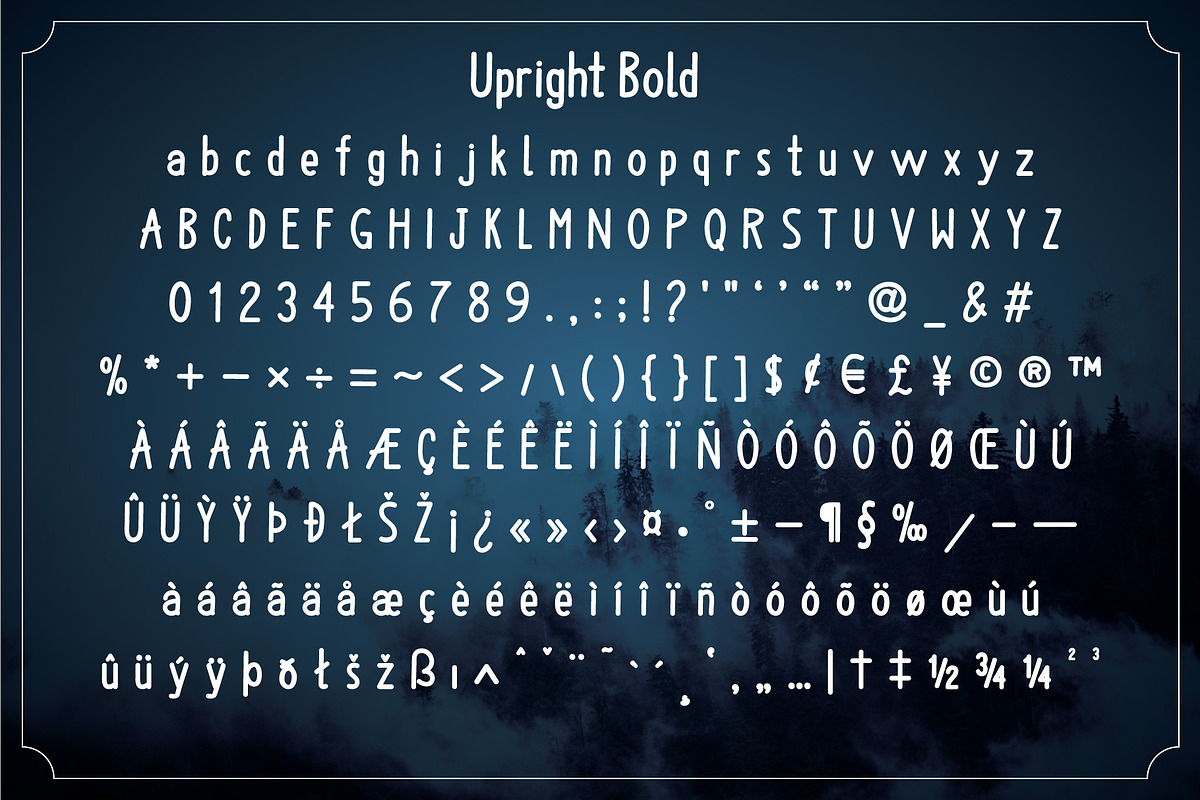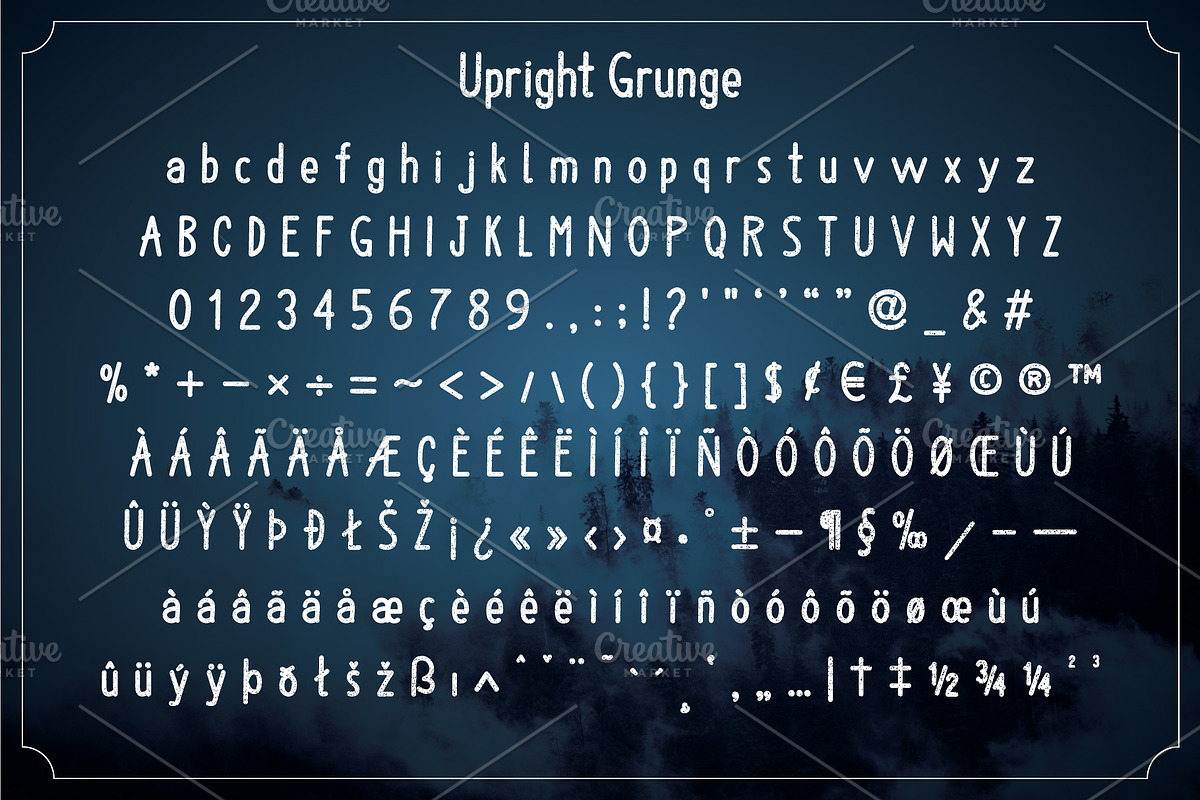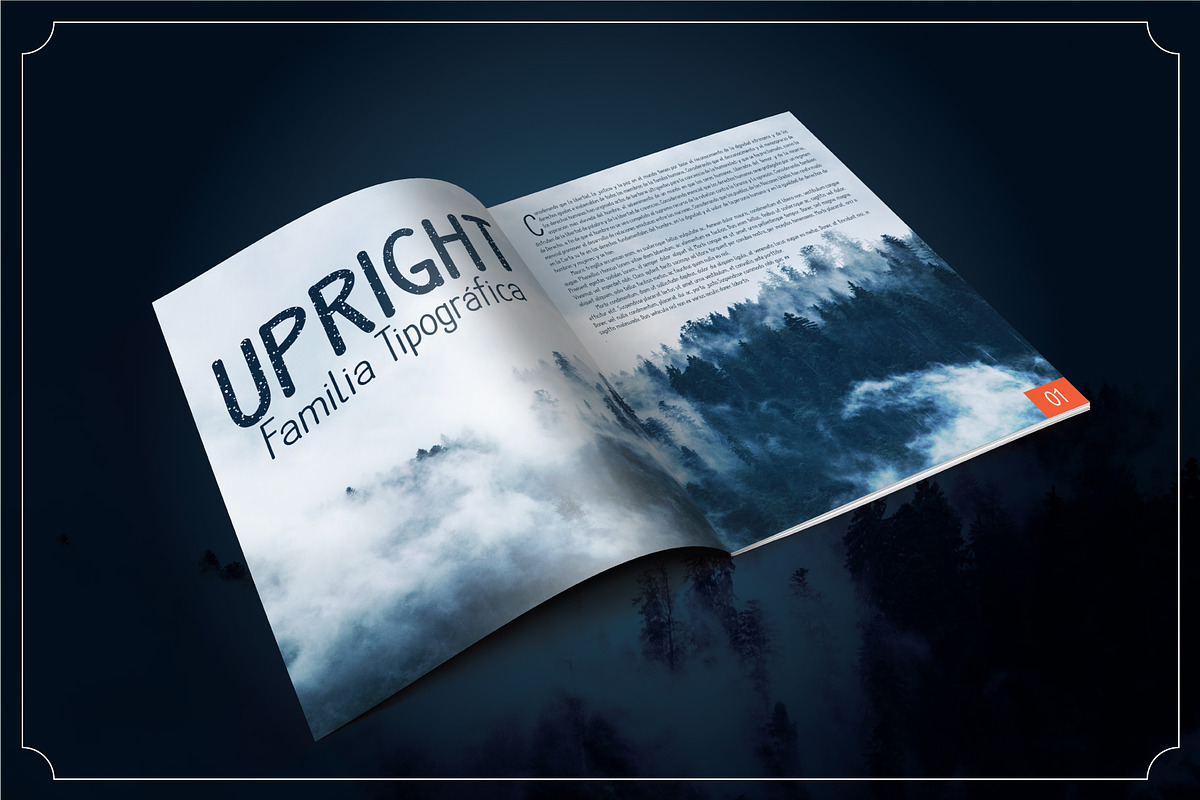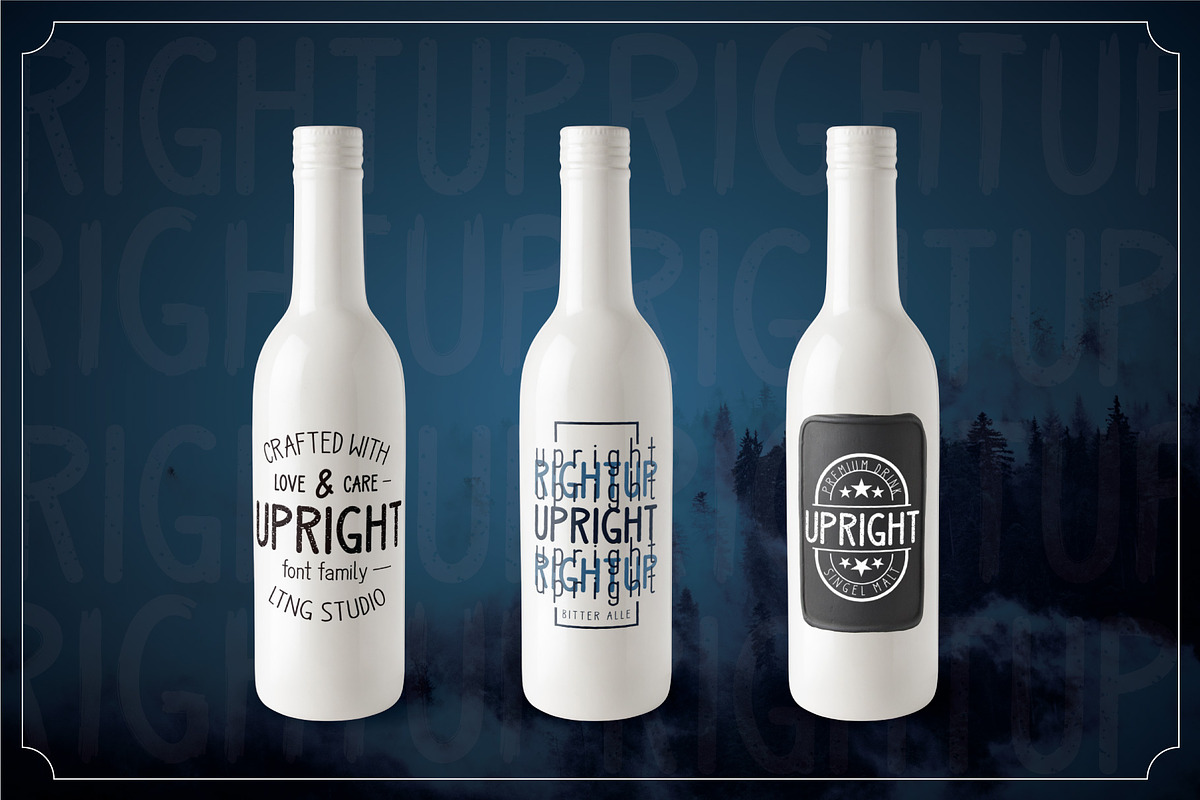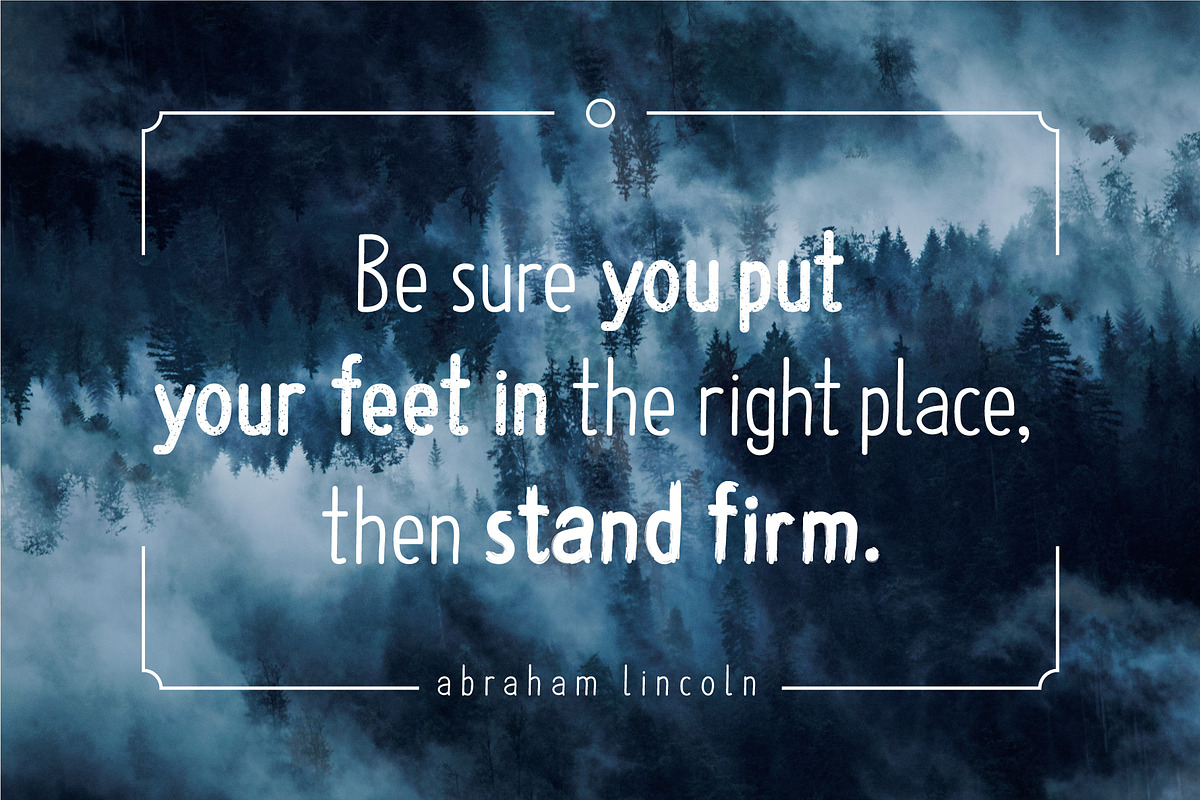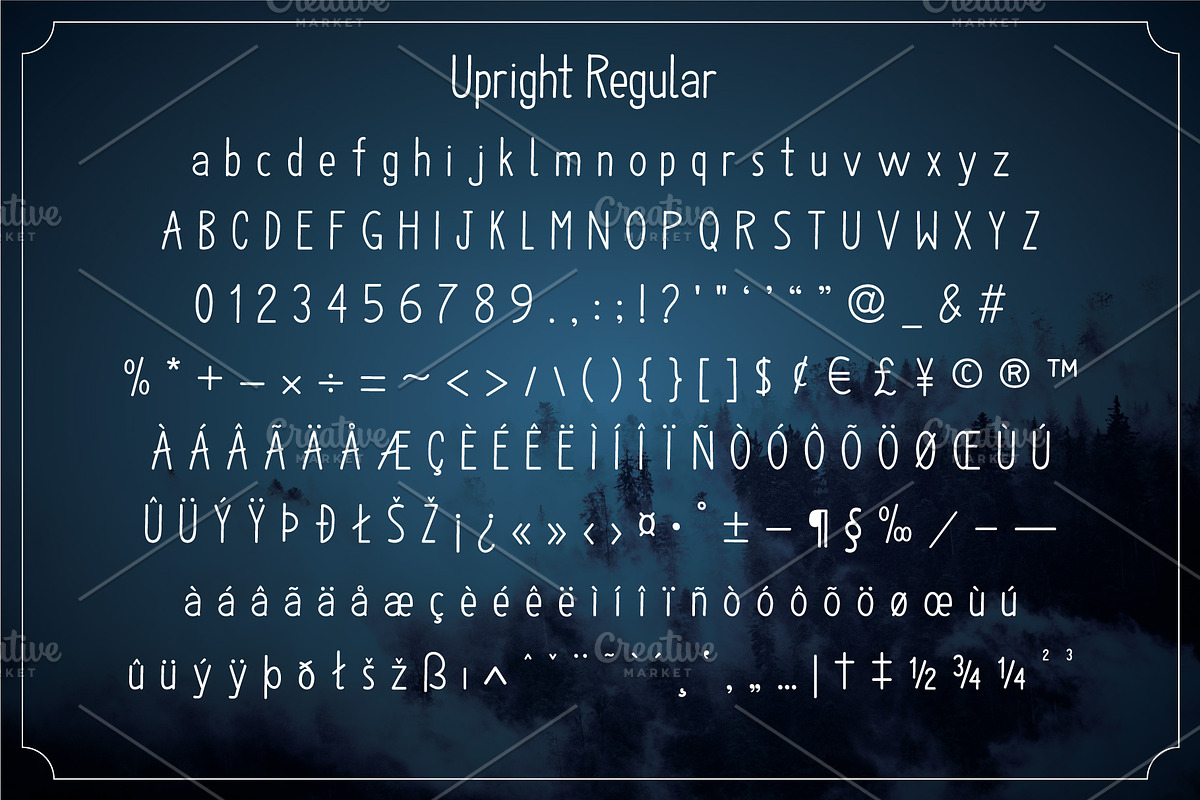
Upright font family
Introducing the UPRIGHT font family, a unique sans serif font family. Upright offers 4 types Upright regular, Upright bold, Upright grunge & Upright brush (will update if have some idea). Upright can be use for diversity of design projects, included logo & branding, magazine, social media post, advertisements & product designs. You will get 4 type of font file in otf and ttf.
- Upright can be use for diversity of design projects, included logo & branding, magazine, social media post, advertisements & product designs
- Upright Regular
- Upright Bold
- Upright Brush
- Upright Grunge